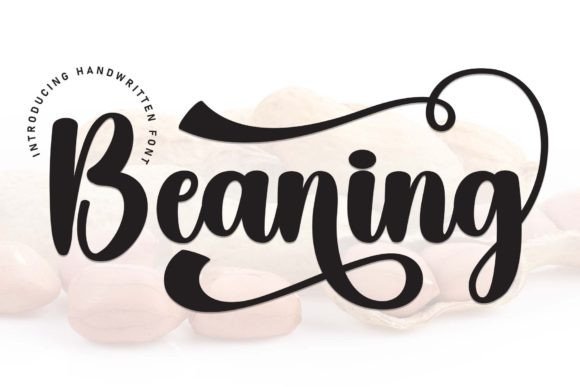
Introducing Beaning Font: The Sweet and Friendly Handwritten Font for Your Creative Projects
Are you a designer, crafter, or DIY enthusiast looking for a font that can add a touch of warmth and personality to your projects? Look no further than Beaning Font, a sweet and friendly handwritten font that’s perfect for a wide range of designs. With its natural and unique style, Beaning Font is incredibly versatile and can be used for everything from greeting cards and invitations to branding and packaging.
The Charm of Beaning Font
Beaning Font is a handwritten font that’s designed to evoke a sense of friendliness and approachability. Its natural, cursive style is reminiscent of handwritten notes and letters, making it perfect for projects that require a personal touch. The font’s unique characteristics, such as its subtle imperfections and varying line widths, give it a charming and organic feel that’s sure to capture the hearts of your audience.
The beauty of Beaning Font lies in its versatility. Its sweet and friendly style makes it suitable for a wide range of designs, from:
- Greeting cards and invitations: Create beautiful and personalized cards for special occasions, such as birthdays, weddings, and holidays.
- Branding and packaging: Add a touch of warmth and personality to your brand’s packaging and marketing materials.
- DIY projects: Use Beaning Font to create unique and personalized labels, signs, and decorations for your craft projects.
- Digital products: Use Beaning Font to create engaging and interactive digital products, such as e-books, printables, and planners.
Why Choose Beaning Font?
So, why choose Beaning Font for your design projects? Here are just a few reasons:
- Unique style: Beaning Font has a one-of-a-kind style that’s sure to set your designs apart from the crowd.
- Easy to read: Despite its handwritten nature, Beaning Font is incredibly legible, making it perfect for both digital and print designs.
- Versatile: Beaning Font can be used for a wide range of designs, from formal to informal, and can be paired with a variety of other fonts and design elements.
- Imagination is the limit: With Beaning Font, the possibilities are endless. Let your imagination run wild and create unique and captivating designs that reflect your personality and style.
Tips for Using Beaning Font
To get the most out of Beaning Font, here are a few tips to keep in mind:
- Pair with other fonts: Experiment with pairing Beaning Font with other fonts and design elements to create unique and visually appealing combinations.
- Use for headlines and body text: Beaning Font is suitable for both headlines and body text, making it a great choice for a wide range of designs.
- Experiment with colors and textures: Add an extra layer of depth and interest to your designs by experimenting with different colors and textures.
In conclusion, Beaning Font is a sweet and friendly handwritten font that’s perfect for designers, crafters, and DIY enthusiasts. Its natural and unique style makes it incredibly versatile, and its legibility and charm make it a great choice for a wide range of designs. So why not give Beaning Font a try and see the amazing things you can create?
With Beaning Font, the only limit is your imagination. So go ahead, get creative, and make your designs shine!